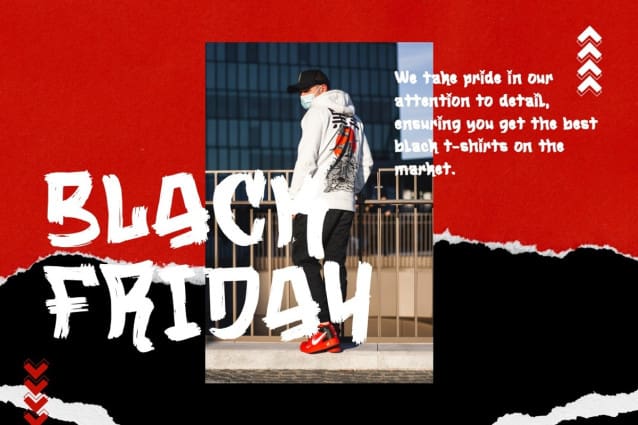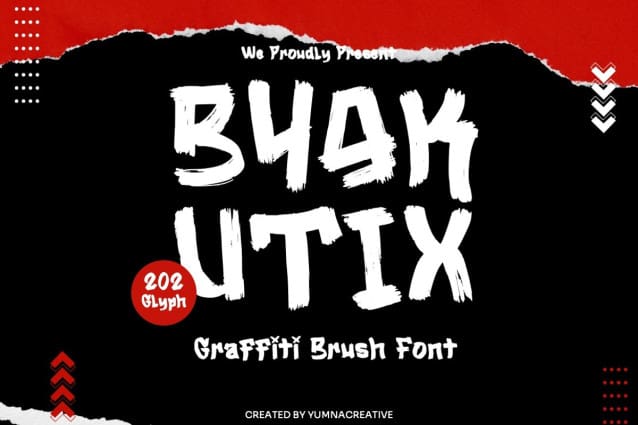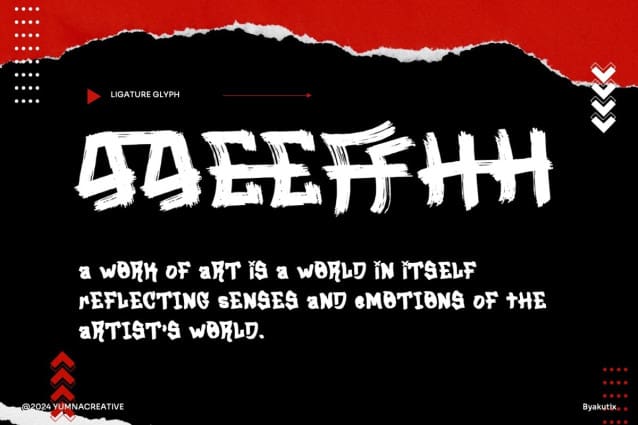
Byakutix Graffiti Brush Font
Byakutix Graffiti Brush Font is a bold, stylish font that looks like it was painted with spray paint. It has a modern, street-art feel, making it perfect for designs that need a cool, urban touch.